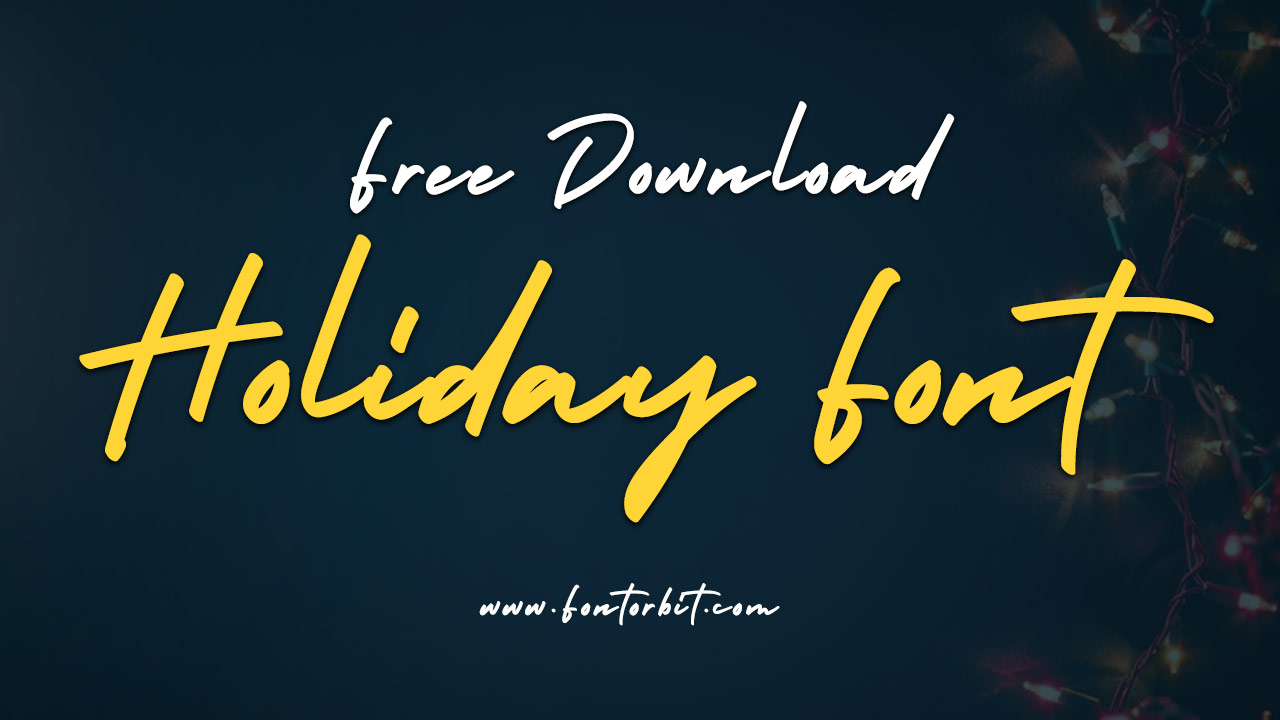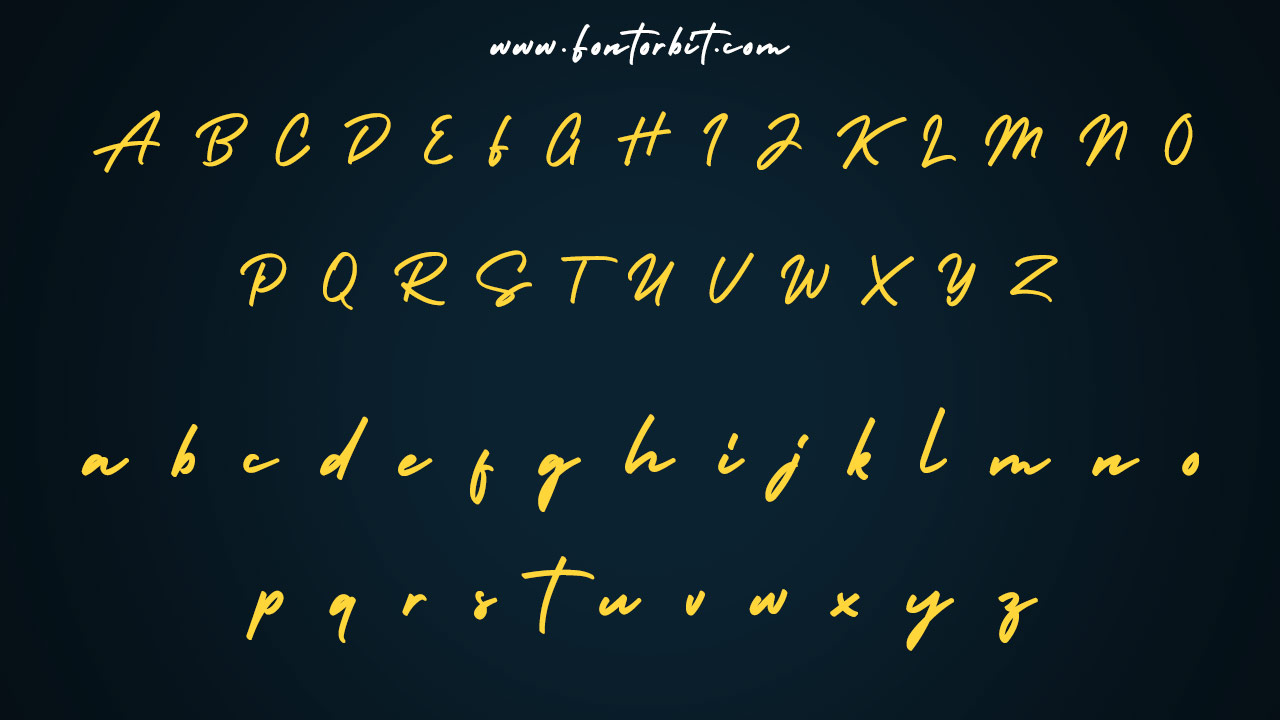
Holiday font is a festive font designed to bring joy and celebration to your projects. Created by Rob Leuschke, this whimsical typeface was first published on Oct 26, 2004. The font is part of the Holiday family, which is perfect for adding a touch of seasonal cheer to various designs.
Holiday Font Family Includes
Holiday font is part of a broader family that offers diverse styles to match your creative needs. Here’s a list of fonts that the Holiday family includes:
a. Holiday Regular
| Style: | Handwritten |
Notable Uses Of Holiday Font
The holiday font is ideal for holiday-themed events and celebrations. Its playful and festive design makes it perfect for:
- Christmas cards and decorations
- Holiday party invitations
- Seasonal marketing materials
Holiday font adds a joyful and festive touch to any project. Consider using it for:
- Greeting cards and holiday invitations
- Social media posts for seasonal promotions
- Event banners and festive flyers
Holiday font is a fun and cheerful font that can enhance any holiday-themed project. Its playful design and seasonal charm make it a great choice for a wide range of festive materials. Whether you’re designing for a holiday party or creating seasonal content, Holiday font brings a touch of joy to your work.
The holiday font is ideal for holiday cards, invitations, and promotional materials.